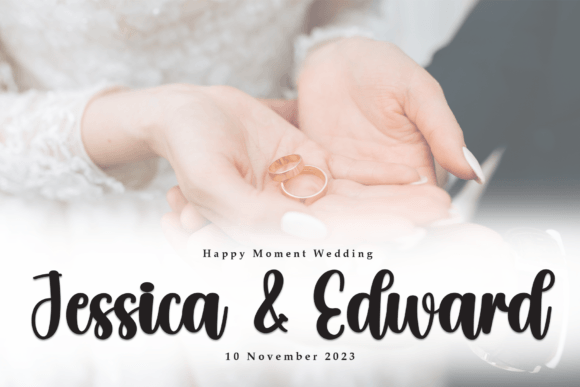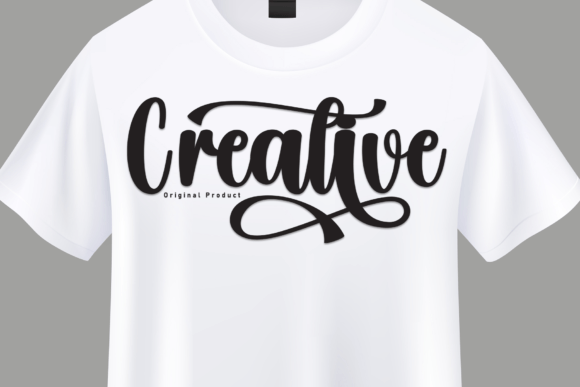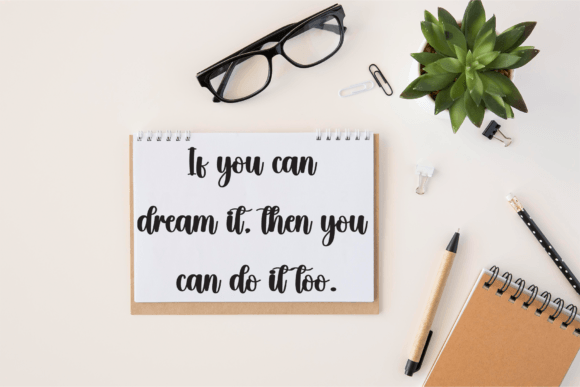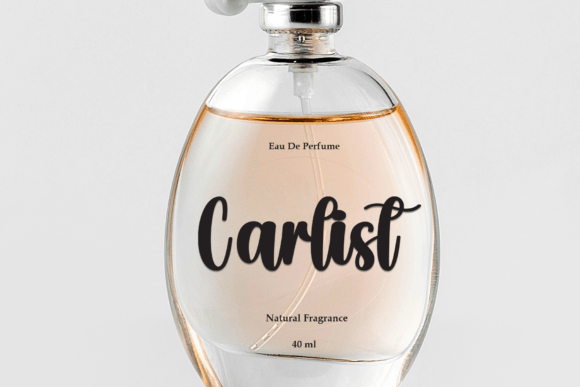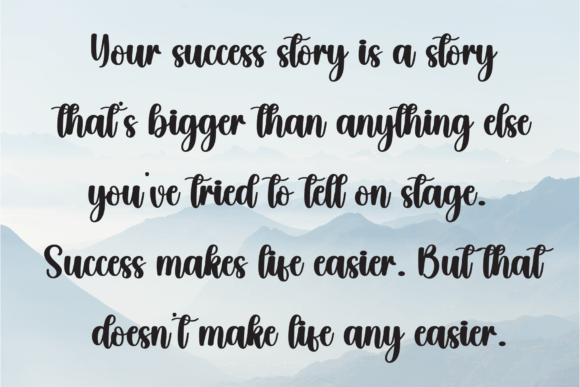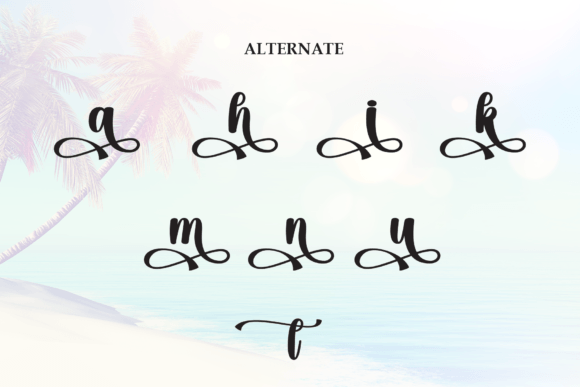
Introducing Beauty Beach Font: Elevate Your Designs with Elegance
Are you on the hunt for a font that exudes elegance and sophistication? Look no further than the Beauty Beach Font. This stunning handwritten font is designed to add a touch of refinement to your favorite projects, making it perfect for designers and crafters alike. With its incredibly distinct and timeless style, Beauty Beach Font is sure to capture your heart and inspire your creativity.
The Characteristics of Beauty Beach Font
Beauty Beach Font is a neat and beautiful handwritten font that boasts an elegant touch. Its unique characteristics make it stand out from other fonts, giving it a distinct personality that is both classic and modern. The font’s flowing lines and curves create a sense of movement and fluidity, making it perfect for designs that require a touch of sophistication.
What Makes Beauty Beach Font So Special?
So, what sets Beauty Beach Font apart from other fonts? Here are just a few reasons why this font is a cut above the rest:
- Elegant and Refined: Beauty Beach Font is designed to add a touch of elegance to your designs. Its refined lines and curves create a sense of sophistication that is hard to achieve with other fonts.
- Timeless Style: Unlike trendy fonts that quickly go out of style, Beauty Beach Font has a timeless quality that ensures it will remain relevant for years to come.
- Incredibly Distinct: With its unique flowing lines and curves, Beauty Beach Font is incredibly distinct and easily recognizable.
- Versatile: Whether you’re working on a logo, branding project, or social media graphics, Beauty Beach Font is versatile enough to adapt to any design style.
How to Use Beauty Beach Font in Your Designs
Now that you’re convinced of the beauty and elegance of Beauty Beach Font, let’s explore some ways to incorporate it into your designs:
Branding and Logo Design
Beauty Beach Font is perfect for branding and logo design projects that require a touch of sophistication. Use it to create a logo that exudes elegance and refinement, setting your brand apart from the competition.
Social Media Graphics
Take your social media graphics to the next level with Beauty Beach Font. Use it to create eye-catching headlines, quotes, and promotional materials that are sure to grab attention.
Wedding and Event Design
Beauty Beach Font is also perfect for wedding and event design projects. Use it to create beautiful invitations, programs, and other stationery that exudes elegance and sophistication.
Tips for Getting the Most Out of Beauty Beach Font
To get the most out of Beauty Beach Font, here are a few tips to keep in mind:
- Experiment with Different Sizes: Beauty Beach Font looks great in a variety of sizes, so don’t be afraid to experiment to find the perfect size for your design.
- Pair it with Other Fonts: Beauty Beach Font pairs well with other fonts, so try combining it with a bold font for added contrast.
- Use it in Combination with Images: Beauty Beach Font looks great in combination with images, so try using it to add text to your favorite photos.
In conclusion, Beauty Beach Font is a stunning handwritten font that is sure to elevate your designs to the next level. With its elegant touch, timeless style, and incredibly distinct characteristics, it’s the perfect choice for designers and crafters looking to add a touch of sophistication to their projects. So why wait? Fall in love with Beauty Beach Font and start creating spectacular designs today!